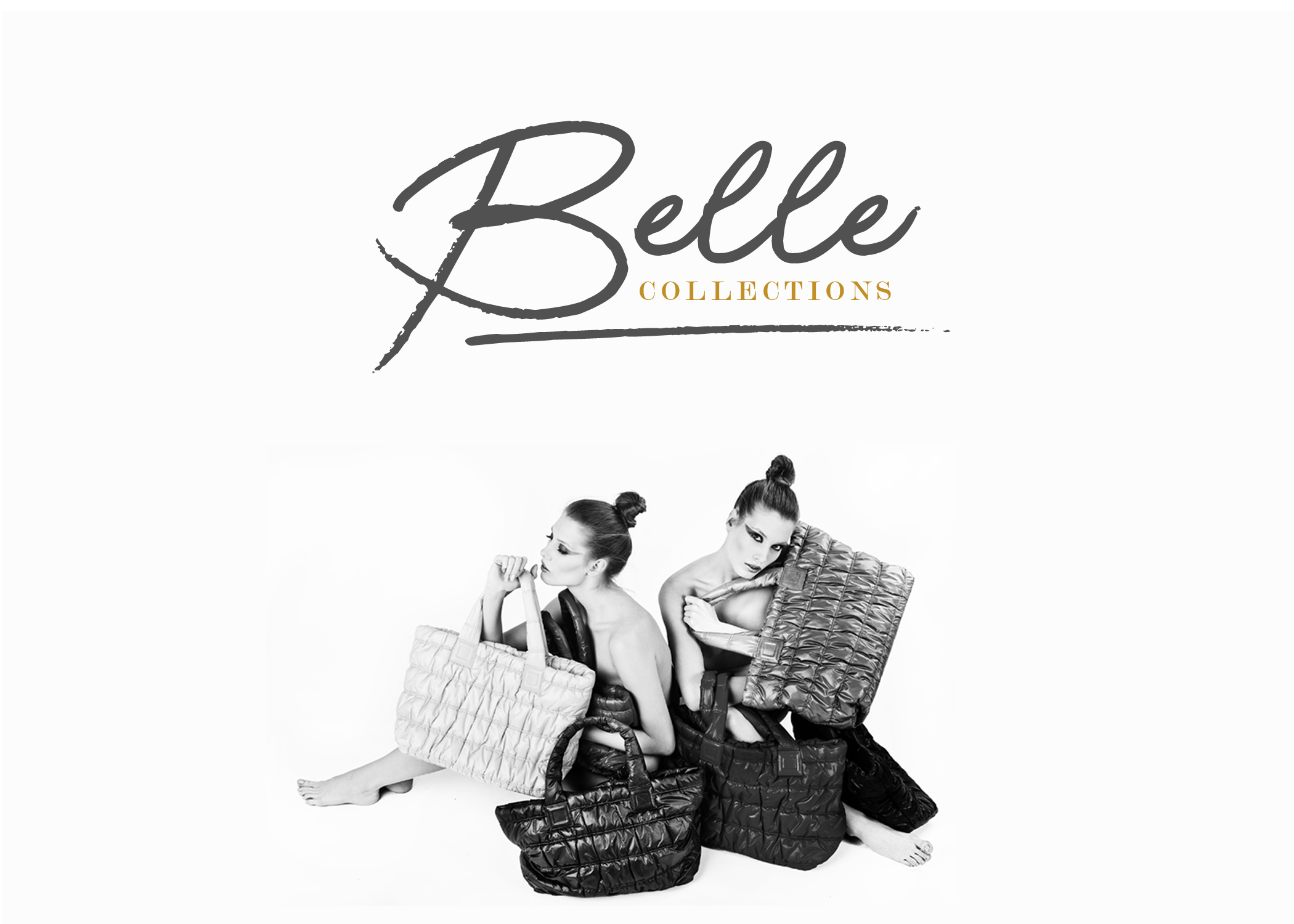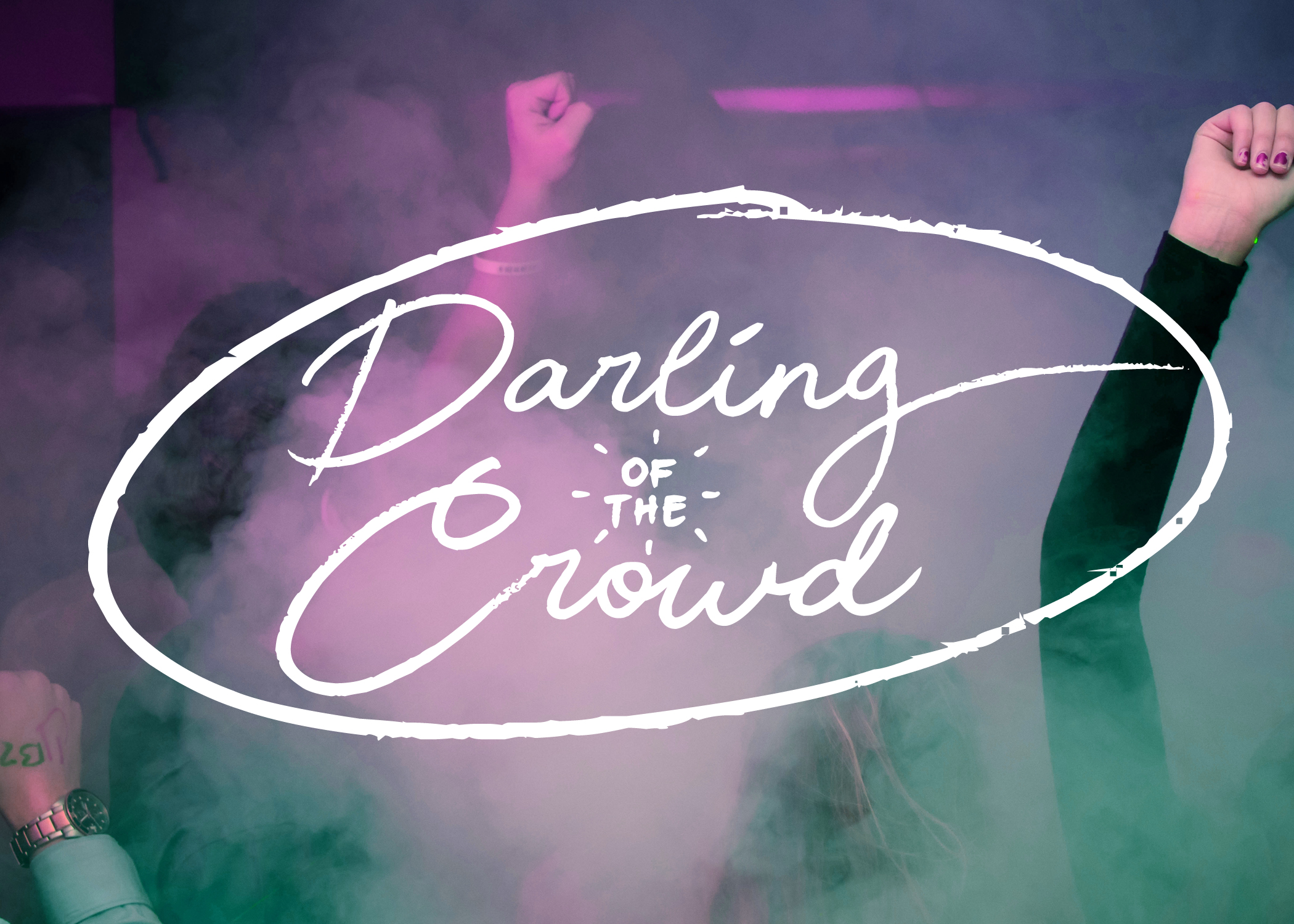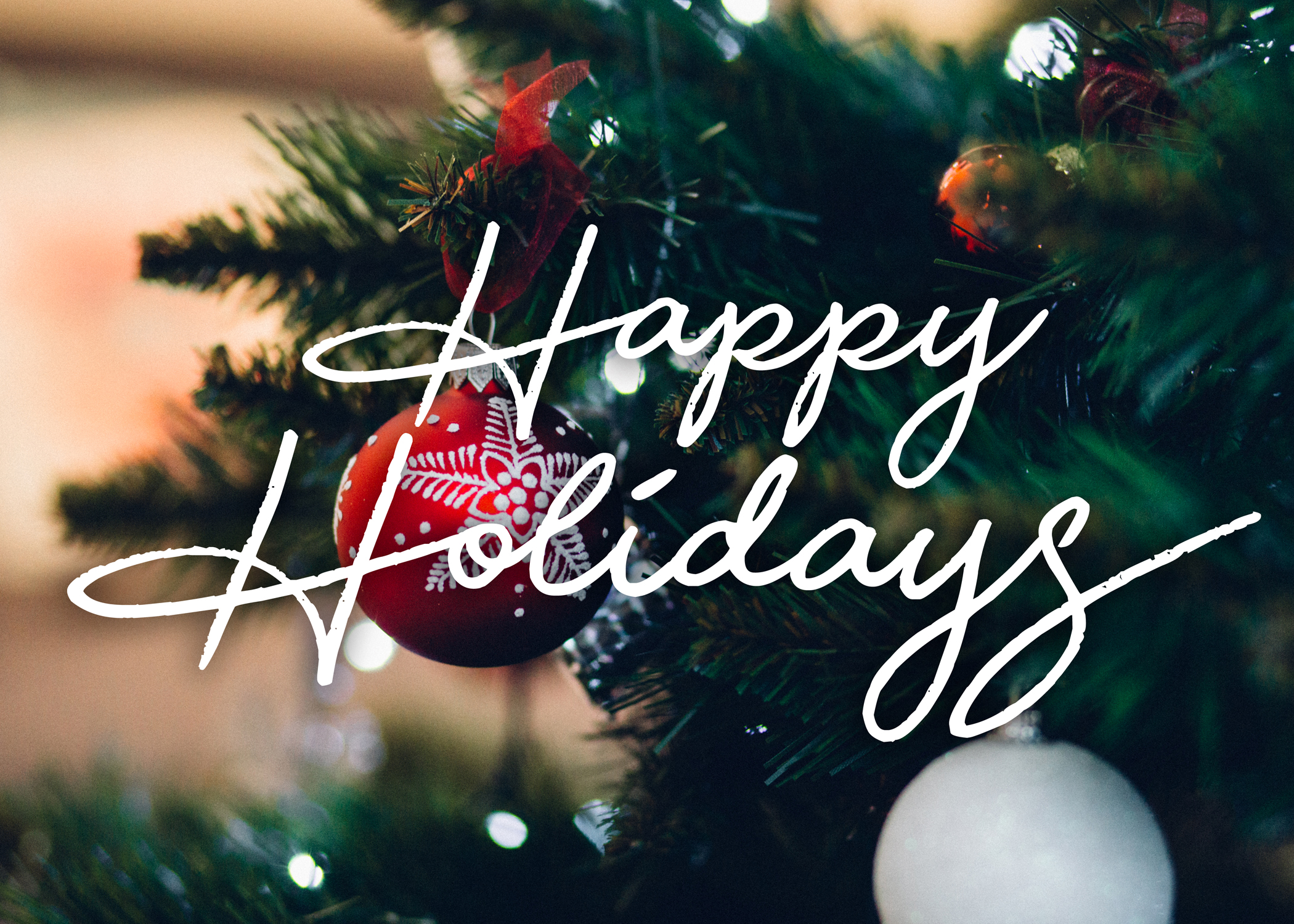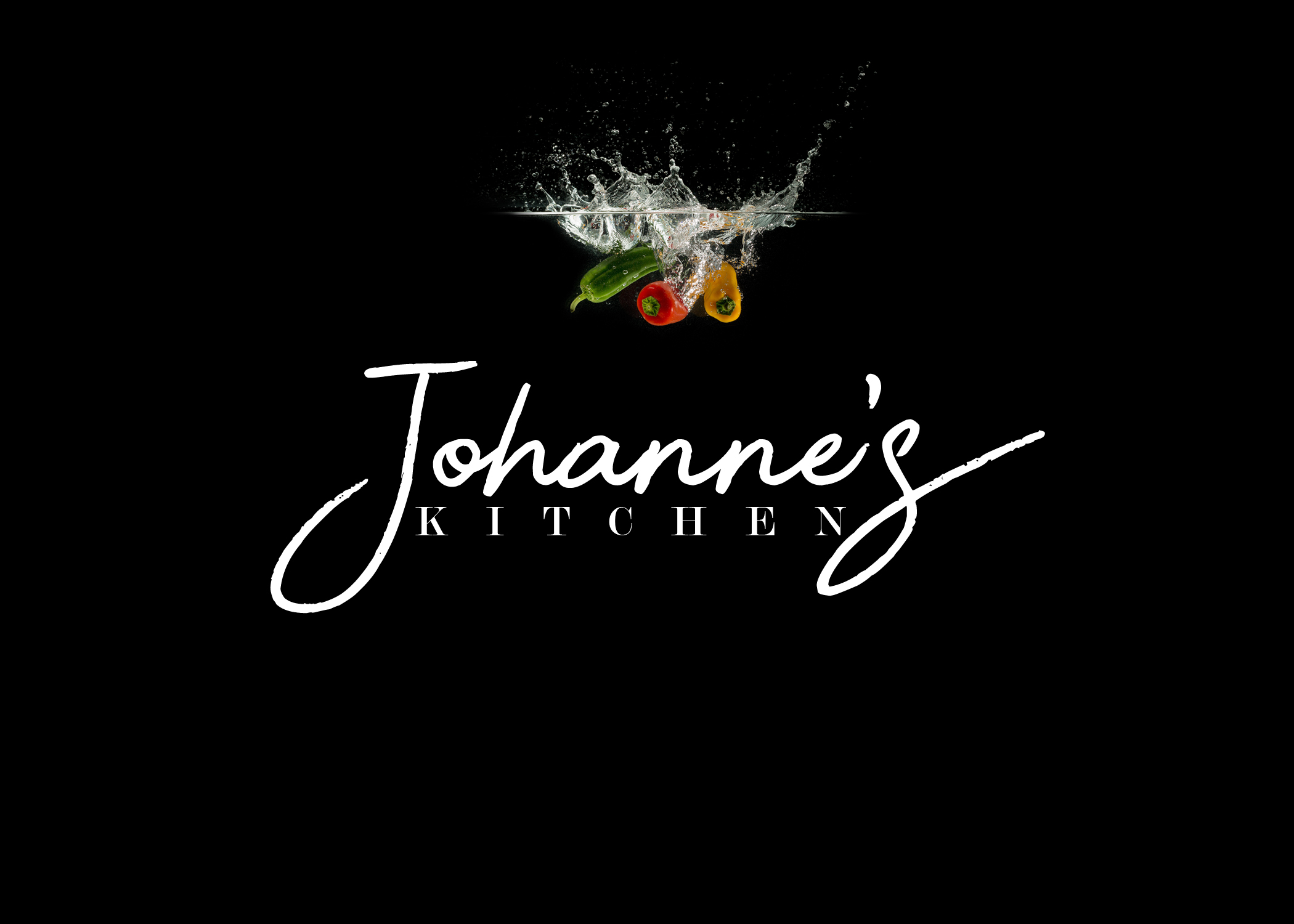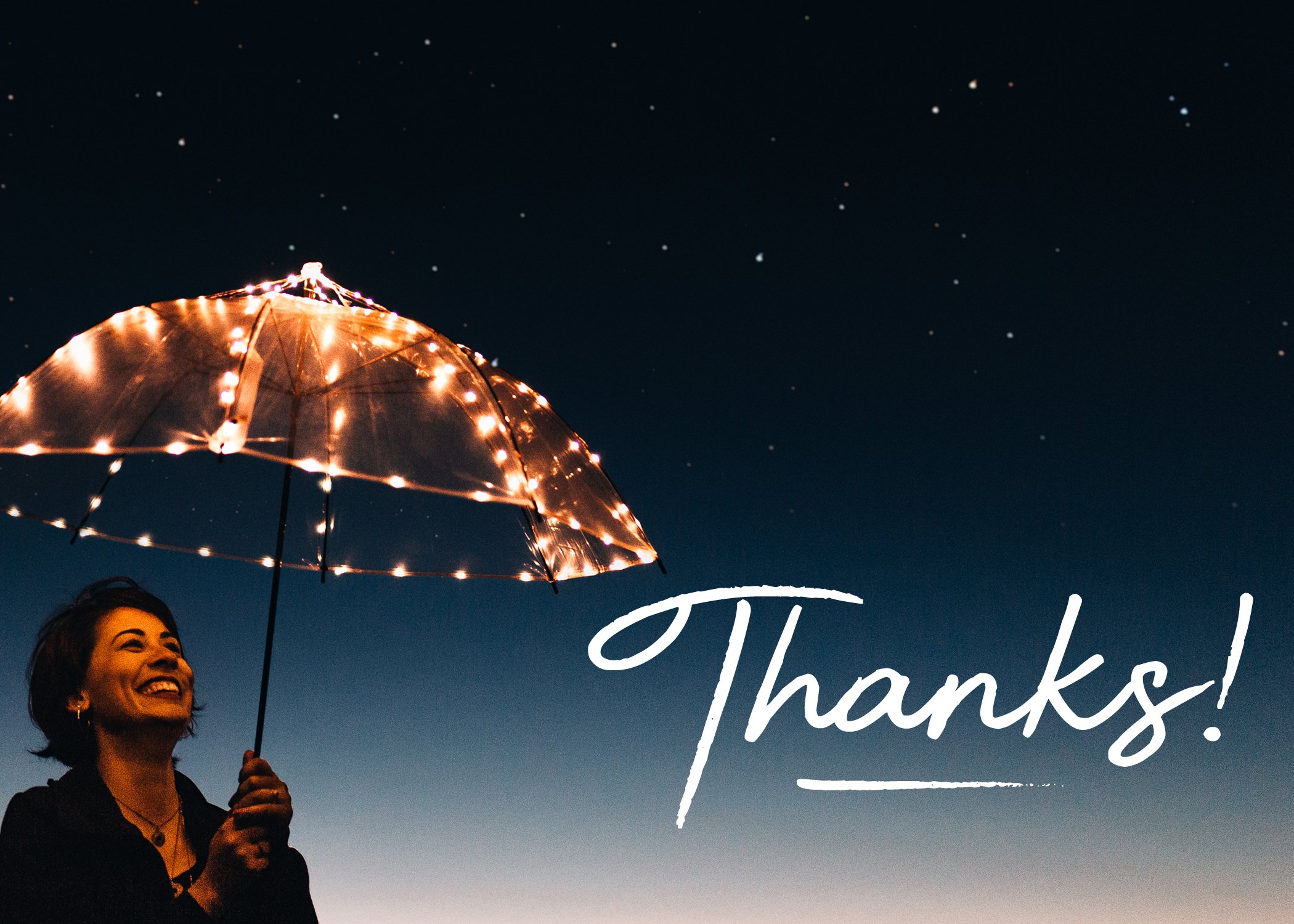
Introducing Beauty Font: A Unique Handwritten Style to Elevate Your Designs
In the world of typography, a font can make or break the aesthetic of a design project. For crafters, designers, and artists looking to add a personal touch to their work, Beauty Font is an exceptional choice. This beautiful, handwritten font is designed to bring a unique and pleasant visual experience to any project.
What Makes Beauty Font Stand Out?
Beauty Font is more than just a typeface; it’s a statement piece. Its uniqueness lies in its handcrafted nature, offering a distinctive look that sets it apart from more conventional fonts. The detailed craftsmanship of Beauty Font ensures that it is pleasant on the eyes, making it perfect for projects where readability and style are paramount.
The Benefits of Using Beauty Font in Your Projects
There are several reasons why Beauty Font should be your go-to choice for projects that require a personal touch:
- Personal Touch: In a digital age where automation is prevalent, Beauty Font adds a human element to your designs, making them more relatable and engaging.
- Versatility: Whether you’re working on a branding project, crafting a unique invitation, or designing a blog, Beauty Font can adapt to various design needs.
- Elegance and Sophistication: The font’s elegant strokes and beautiful detailing bring a level of sophistication to your work, elevating it from ordinary to extraordinary.
- Readability: Despite its decorative nature, Beauty Font remains clear and readable, ensuring that your message is communicated effectively.
Who Can Benefit from Beauty Font?
Beauty Font is not just limited to professional designers; it’s also a valuable resource for:
- Graphic Designers: Looking for a unique font to add character to their designs.
- Crafters: Creating handmade cards, scrapbooking, or other paper crafts that require a personal touch.
- Bloggers: Seeking to enhance the visual appeal of their blog posts or social media content.
- Small Business Owners: Aiming to create a distinctive brand identity through their marketing materials.
How to Make the Most of Beauty Font
To truly leverage the potential of Beauty Font, consider the following tips:
- Pair it with Simpler Fonts: For optimal readability, pair Beauty Font with simpler fonts for headings and body text.
- Experiment with Colors: Don’t be afraid to play with different colors to match your brand’s palette or the mood of your design.
- Adjust Size and Weight: Experiment with different sizes and weights of Beauty Font to create visual hierarchy in your designs.
Beauty Font is a game-changer for anyone looking to infuse their designs with a personal, elegant, and unique touch. Its readability, versatility, and beautiful detailing make it an invaluable asset in the world of design. Whether you’re a professional designer or a hobbyist crafter, Beauty Font has the potential to elevate your projects and make them truly unforgettable.